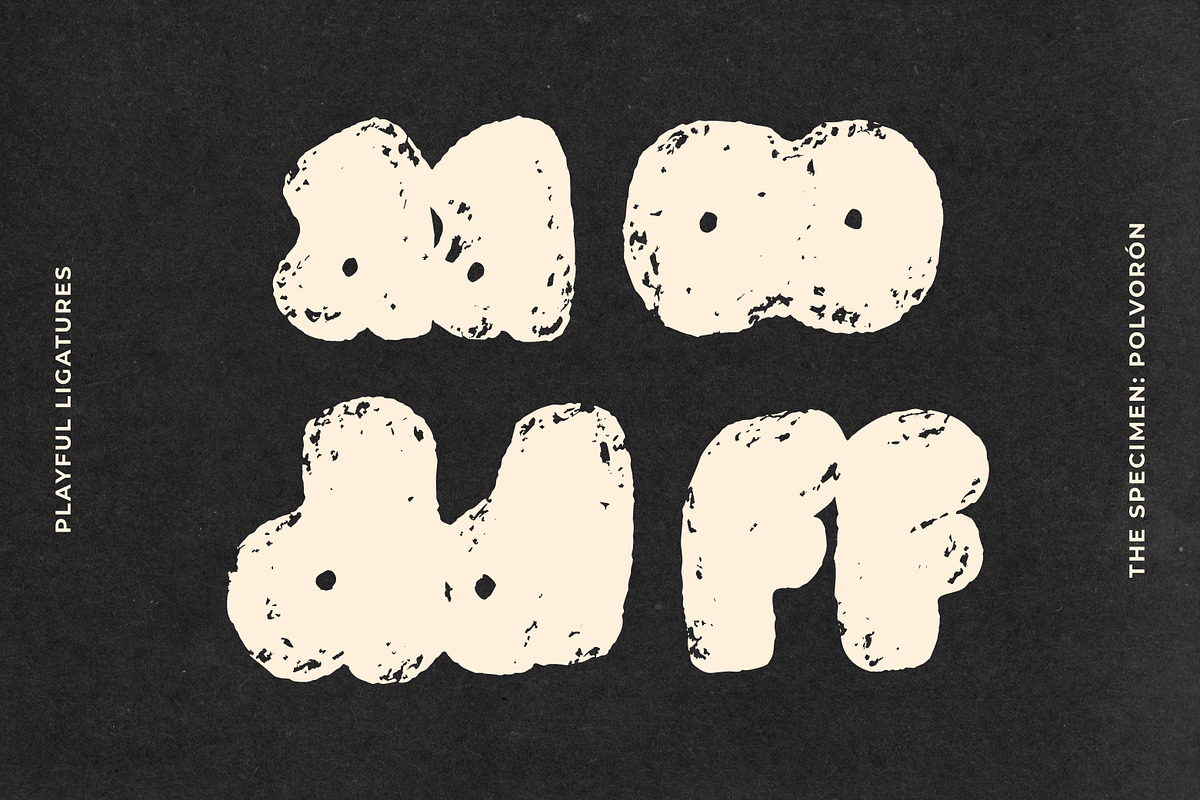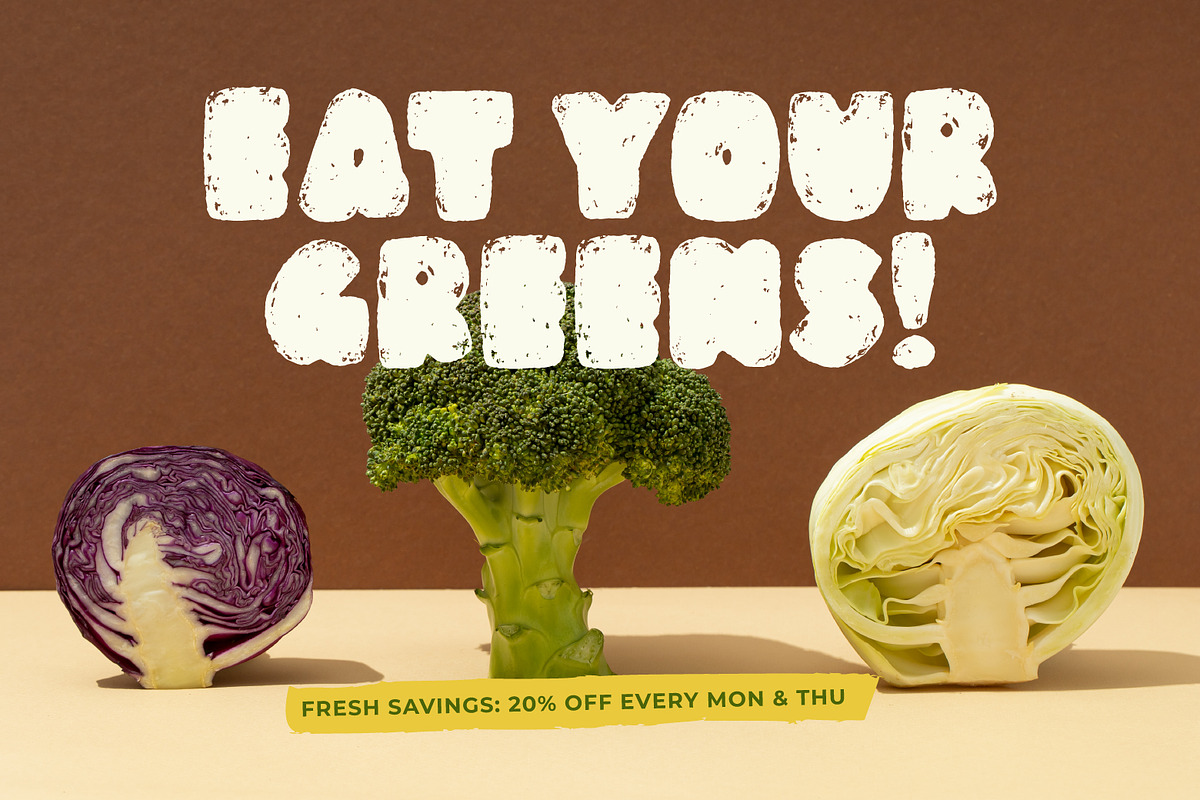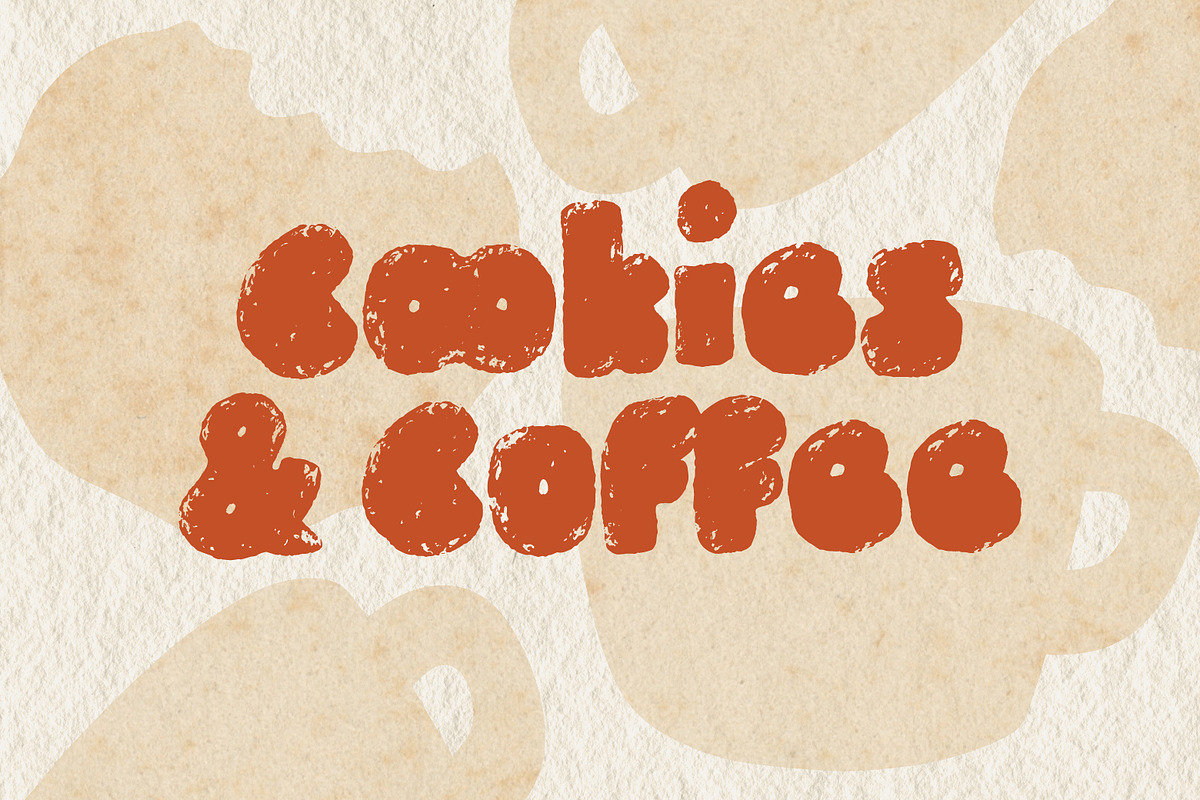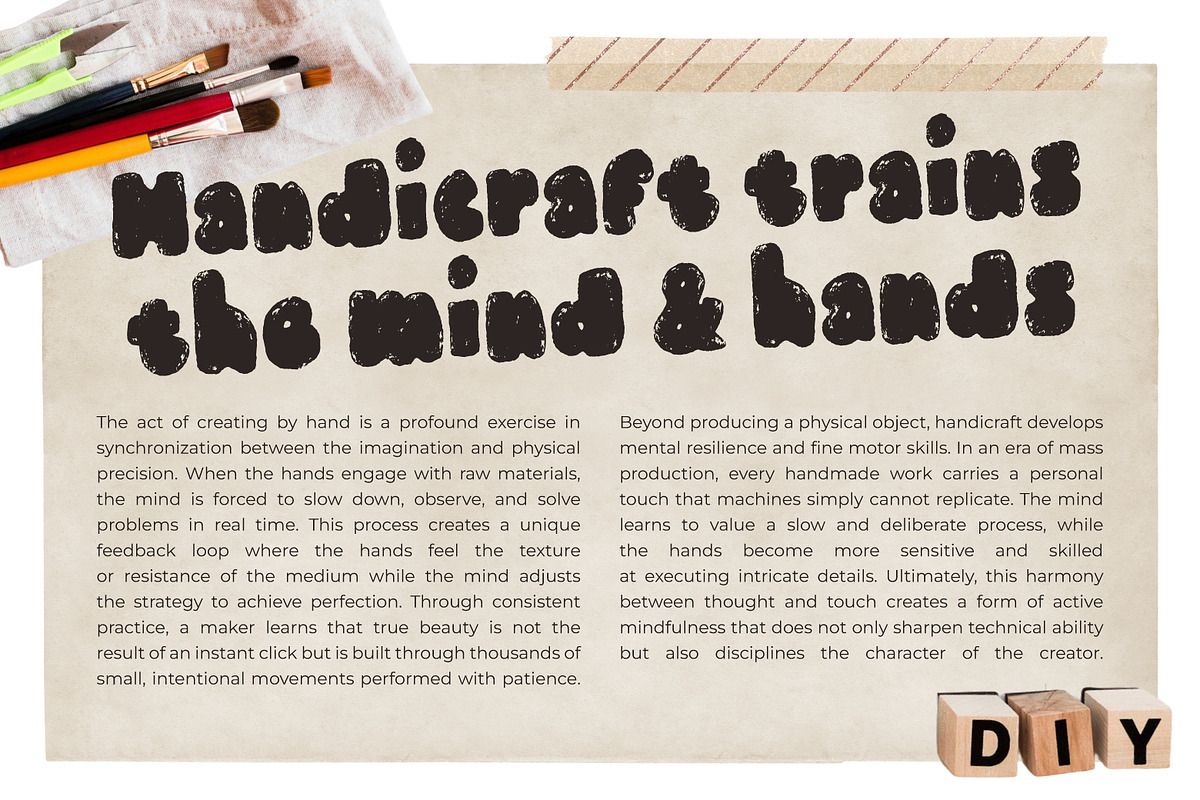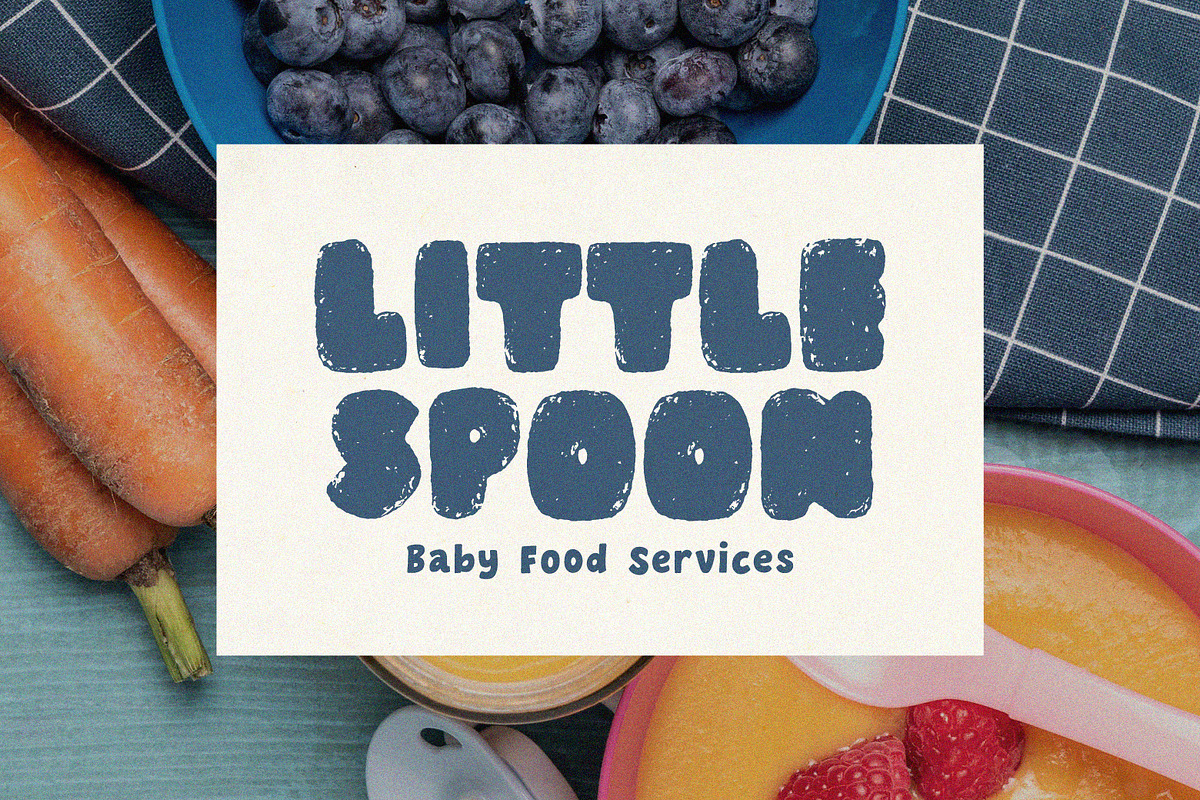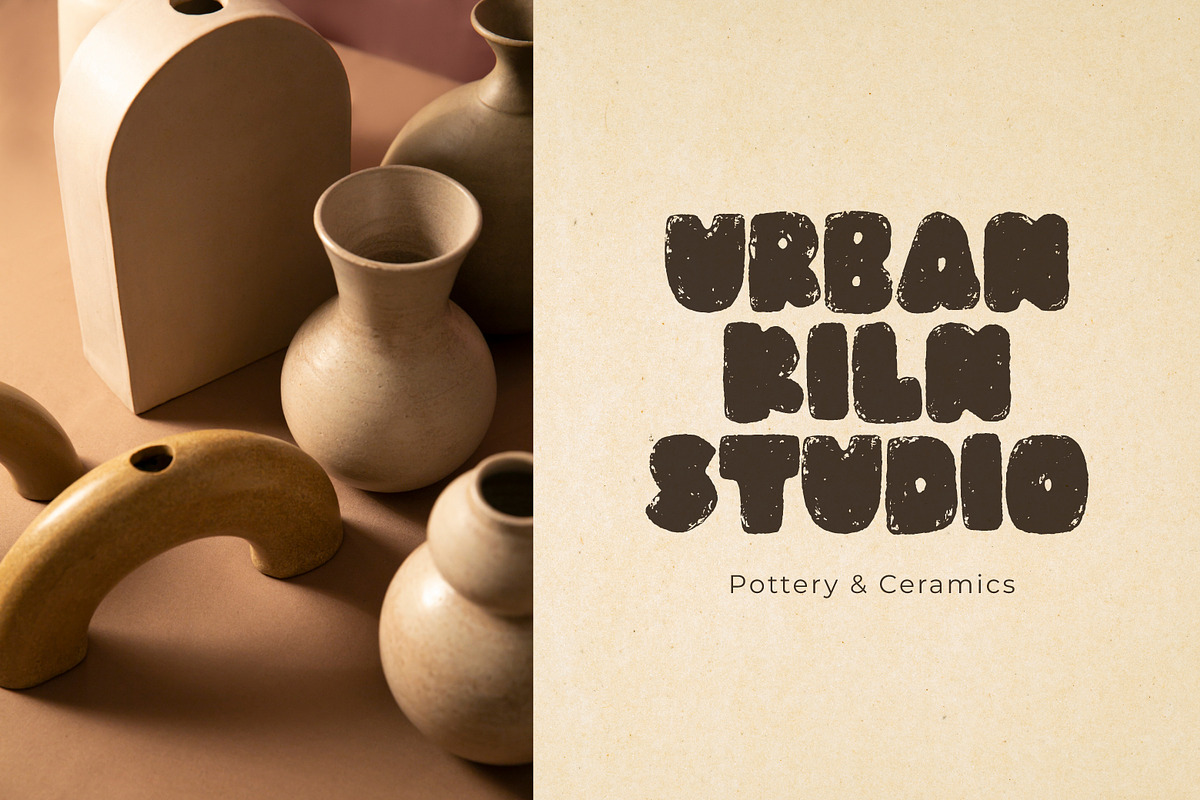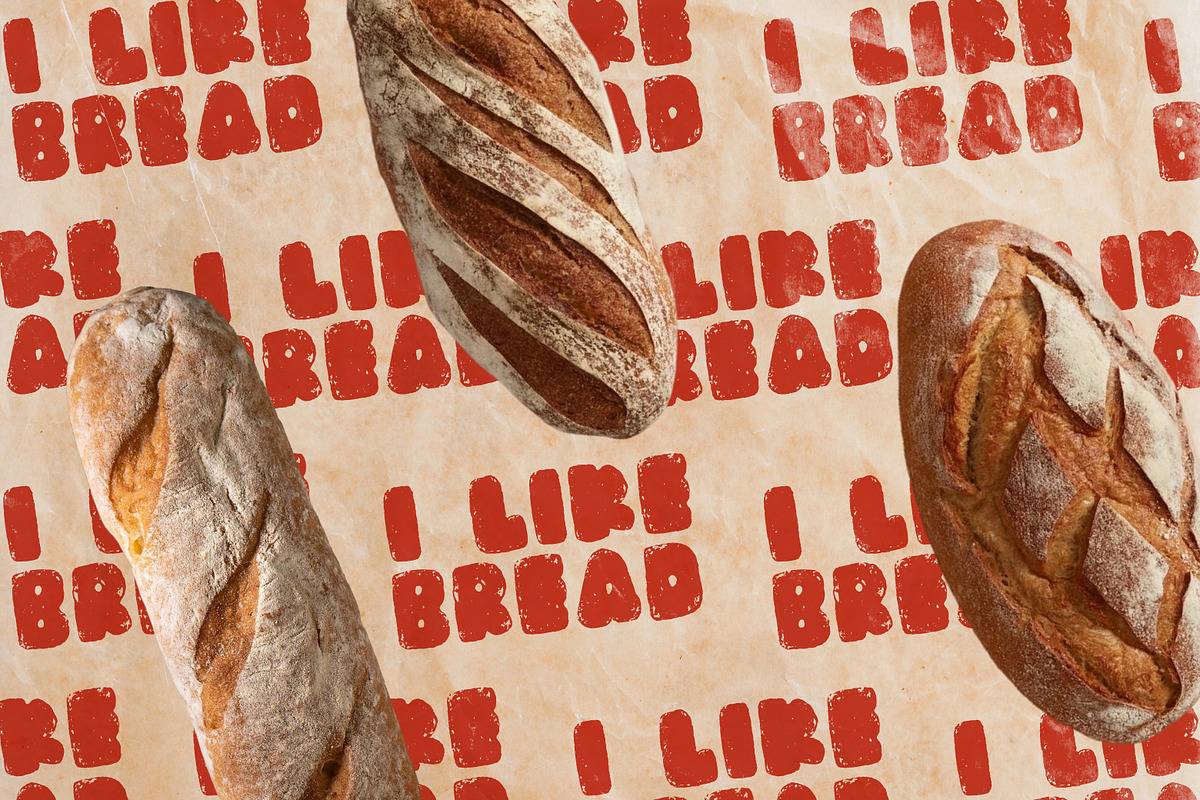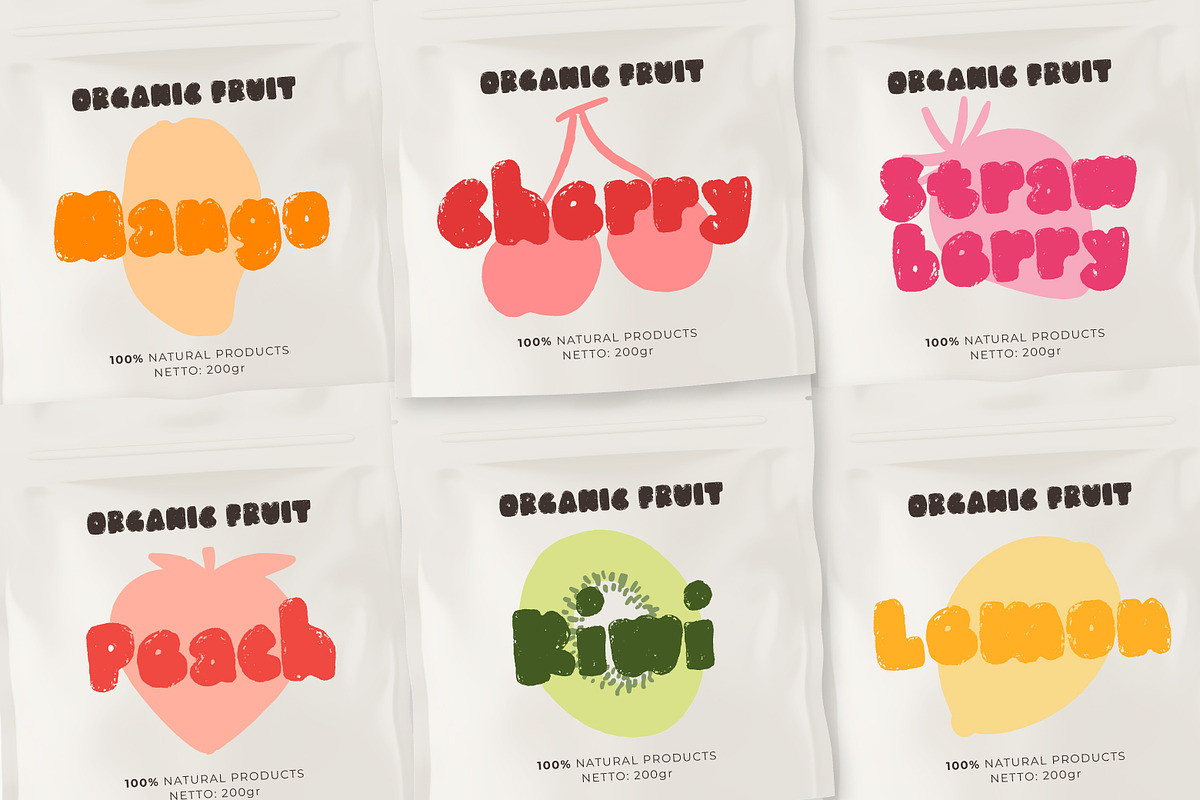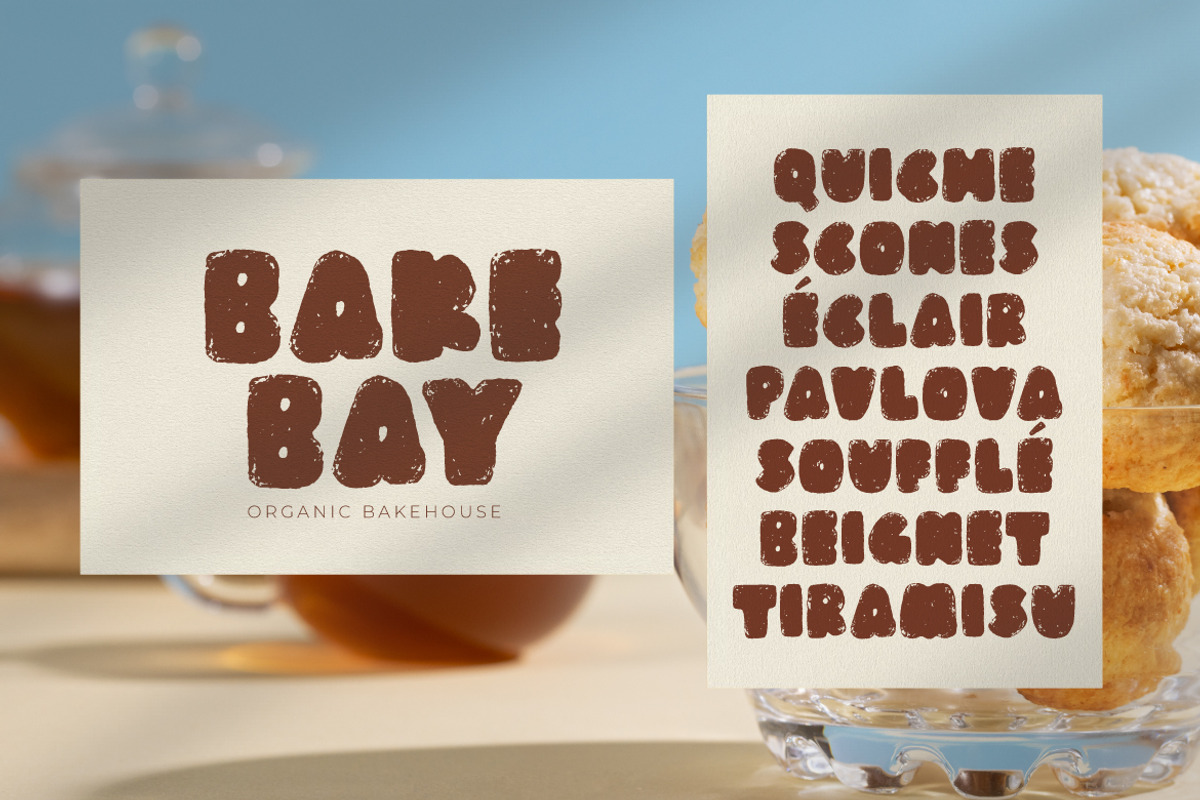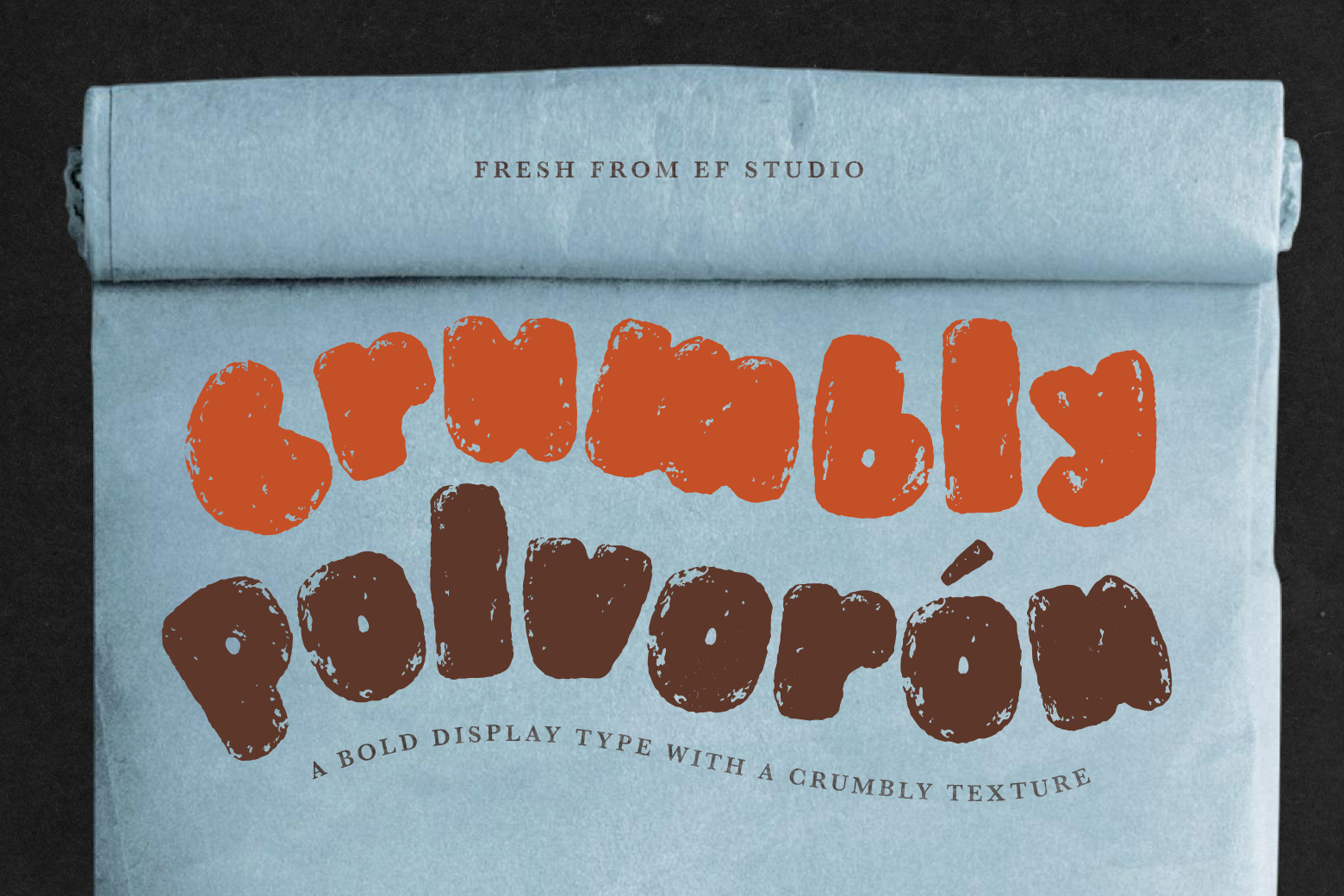
Polvorón - Crumbly Bold Display Font
Meet Polvorón, a bold and chubby display font designed to bring warmth and a tactile "crumbly" texture to your creative projects. Inspired by the sandy, buttery feel of traditional cookies, its thick and friendly curves are perfect for eye-catching food packaging, from artisan bakeries to coffee shop branding. The organic grit in every character also makes it a natural fit for "back-to-nature" concepts, such as organic product labels, sustainable lifestyle products, or handcrafted pottery studios. Whether you are designing a playful social media post or a premium eco-friendly brand, this font adds a pinch of warmth and a handful of personality that makes any design feel rooted and authentic. What’s Included:
- Uppercase & Lowercase (with the signature crumbly texture)
- Special Ligatures